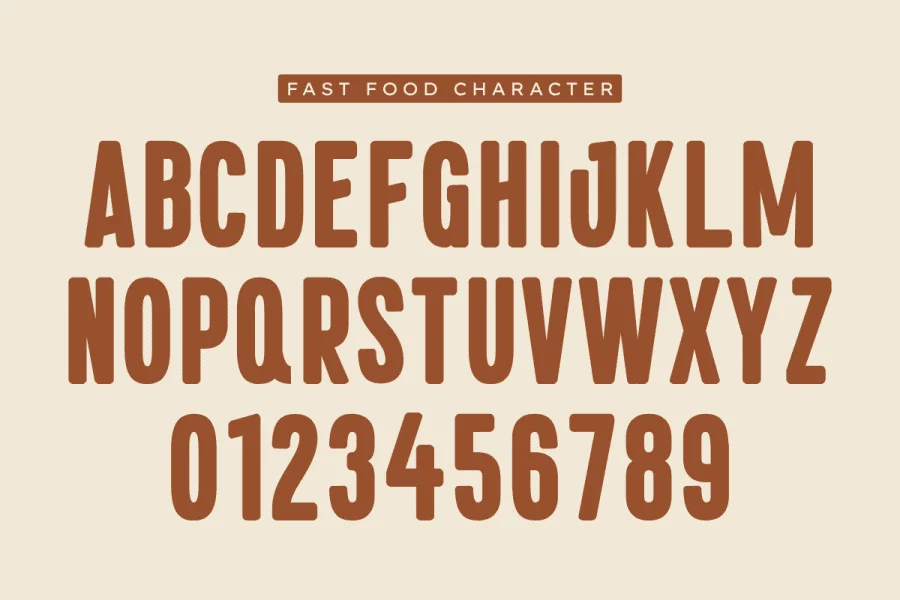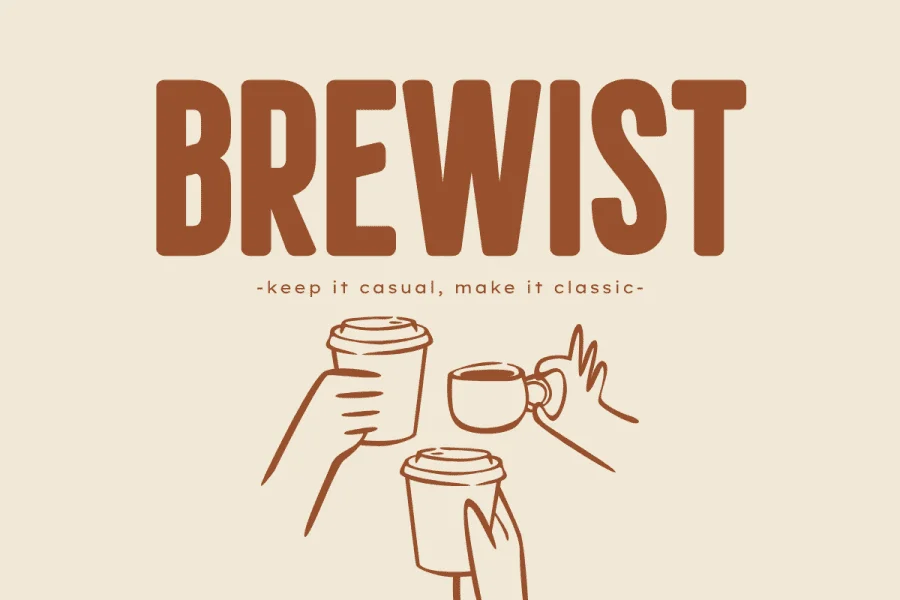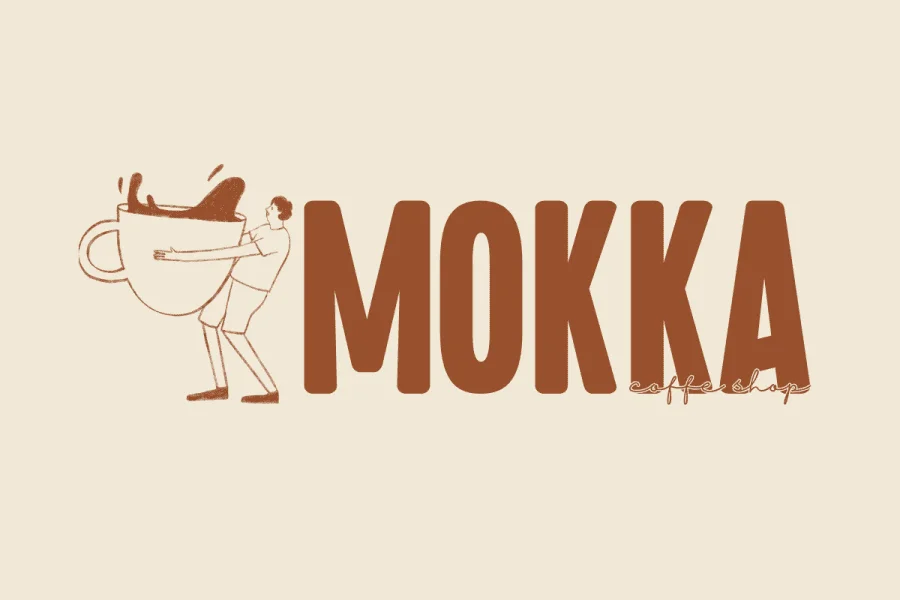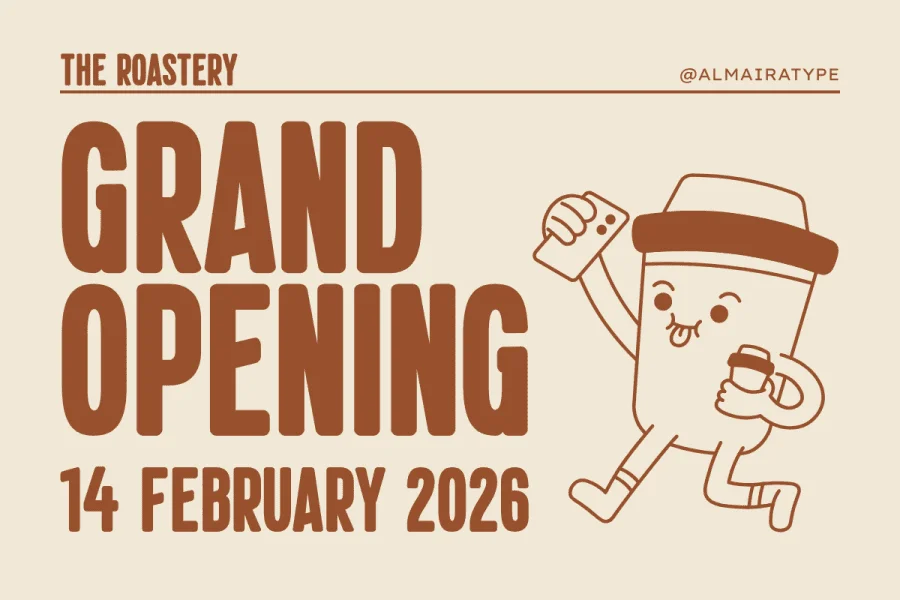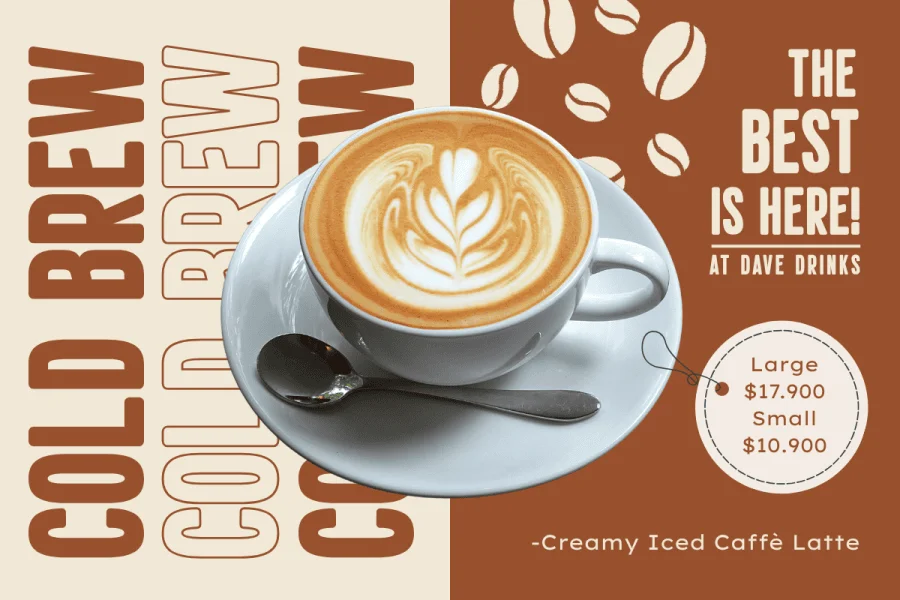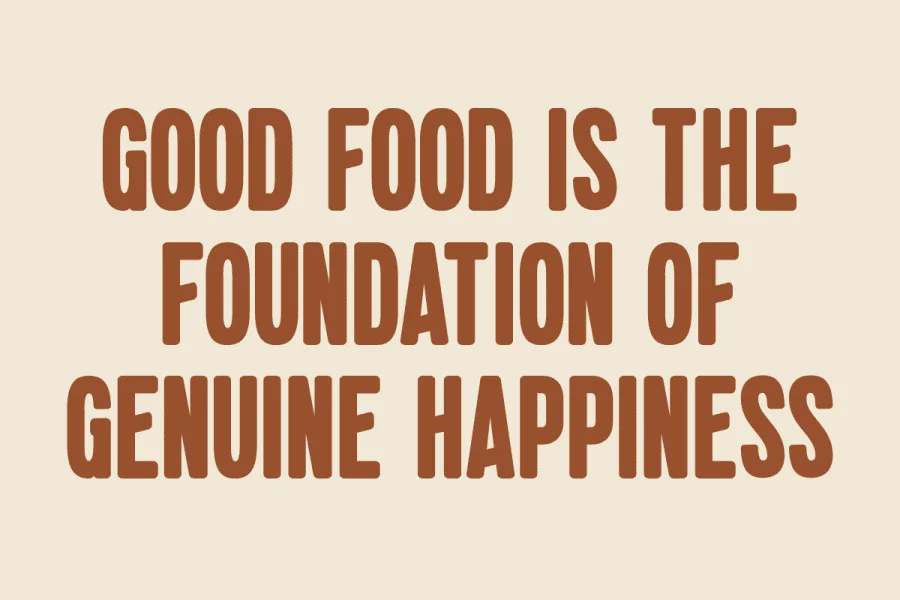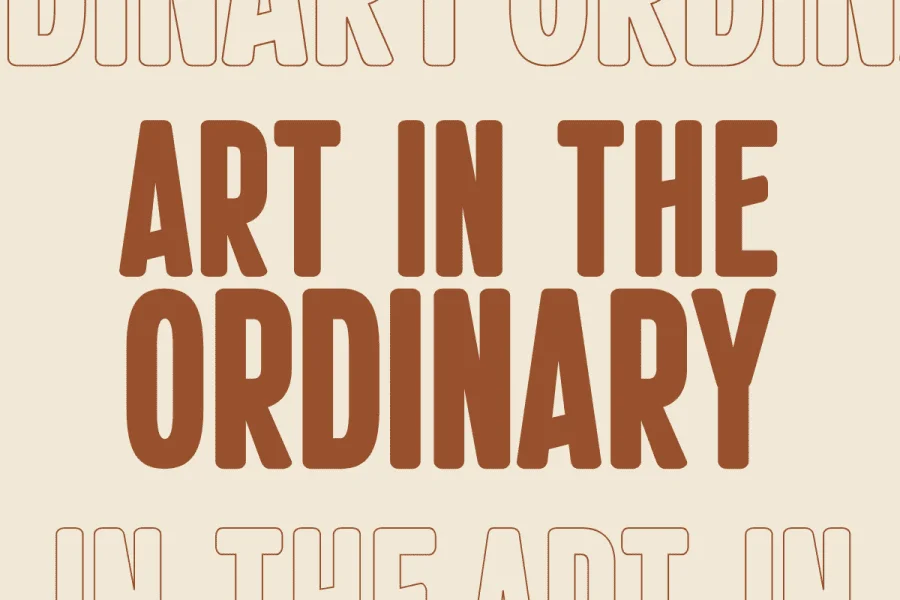
Fast Food is a retro-inspired, condensed sans-serif typeface that channels a warm, casual, and nostalgic aesthetic. Characterized by its tall, narrow proportions and soft, rounded terminals, the letterforms present a friendly yet structured appearance. The stroke weight is highly uniform, displaying a low-contrast that ensures legibility and a consistent visual texture. Each character features gently softened corners, removing any harshness and giving the overall alphabet an approachable, hand-finished quality.
This typeface is exceptionally suited for display applications where space is at a premium but personality is required. It excels in branding and promotional materials for fast food joints, coffee cafes, and artisanal food and drinks packaging, as well as on menu boards, event posters, and casual apparel designs. Its condensed nature allows for high-impact headlines and compact typographic layouts, making it an ideal choice for projects seeking a vintage, mid-century commercial sign-painting vibe.